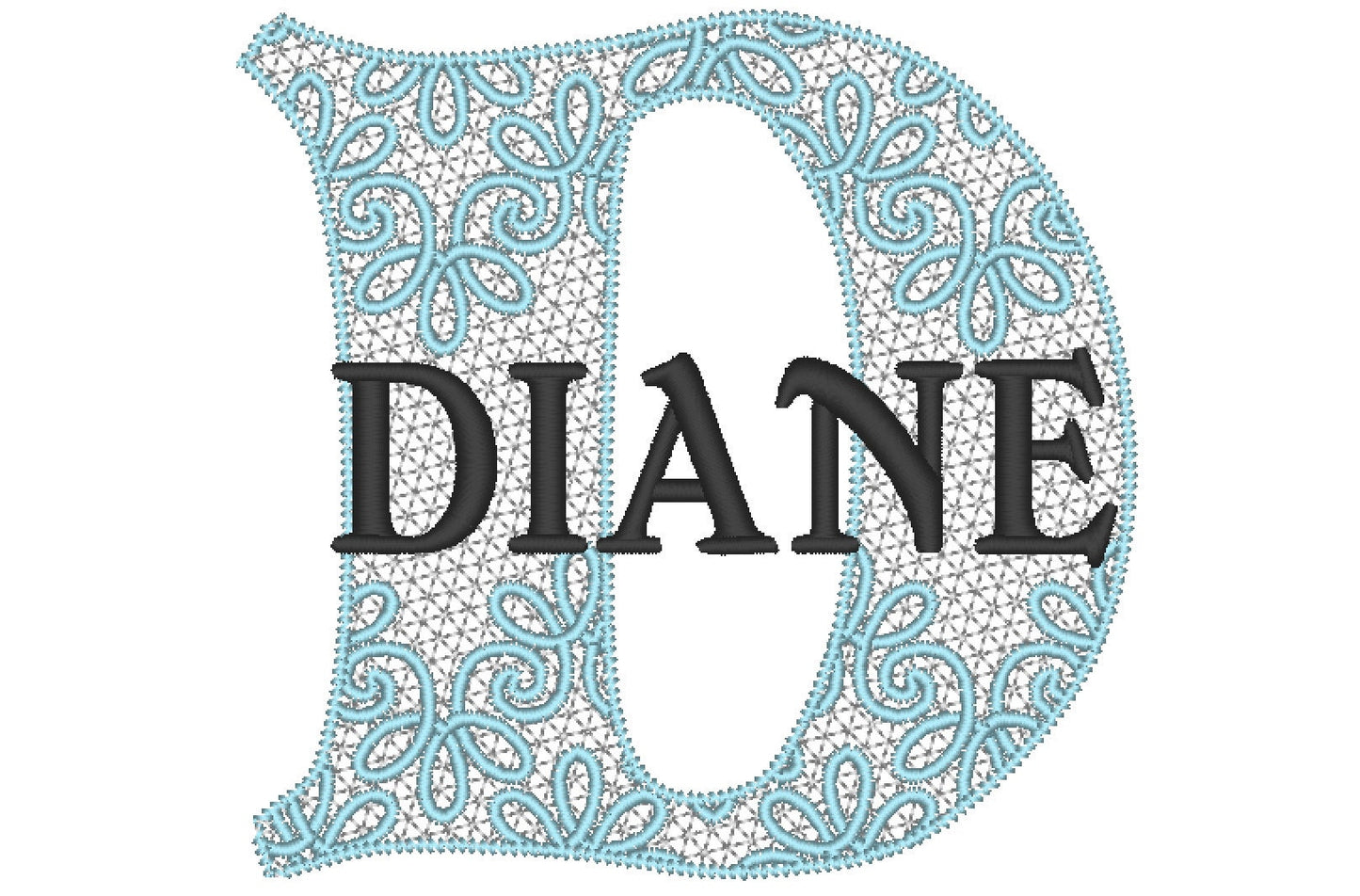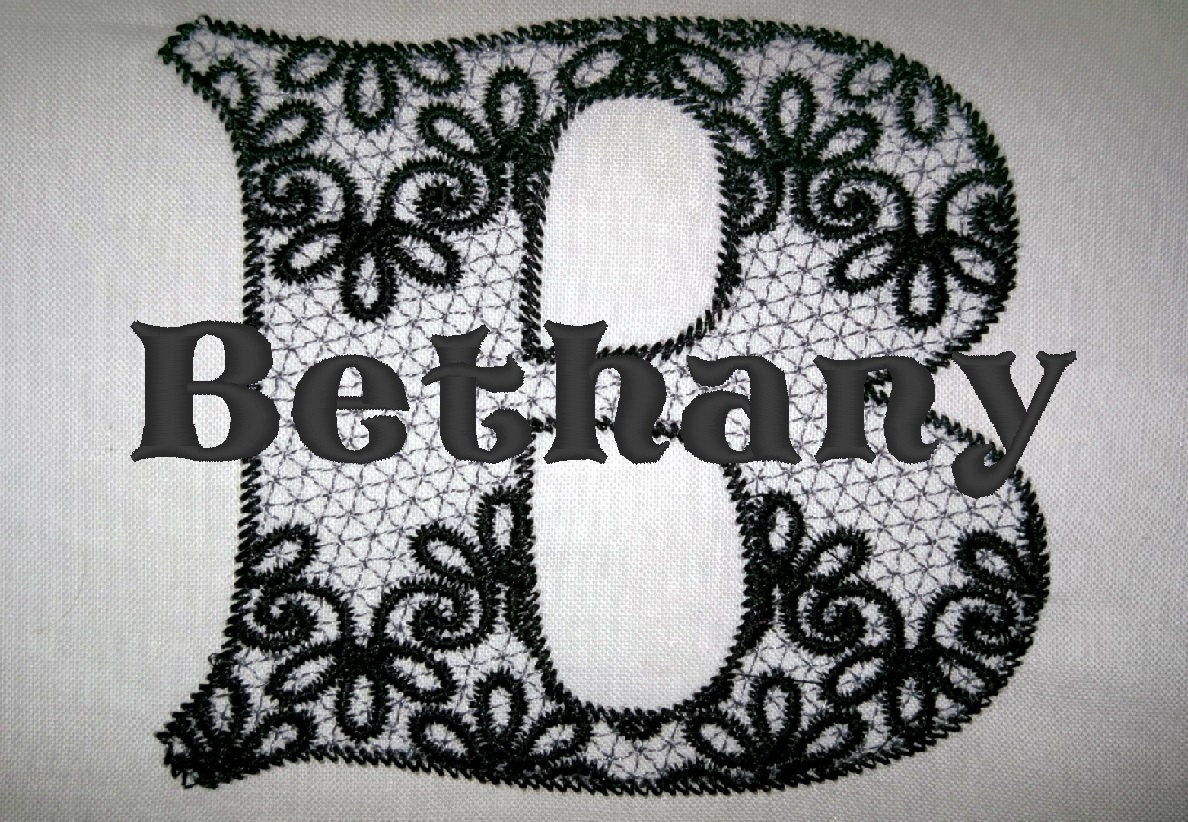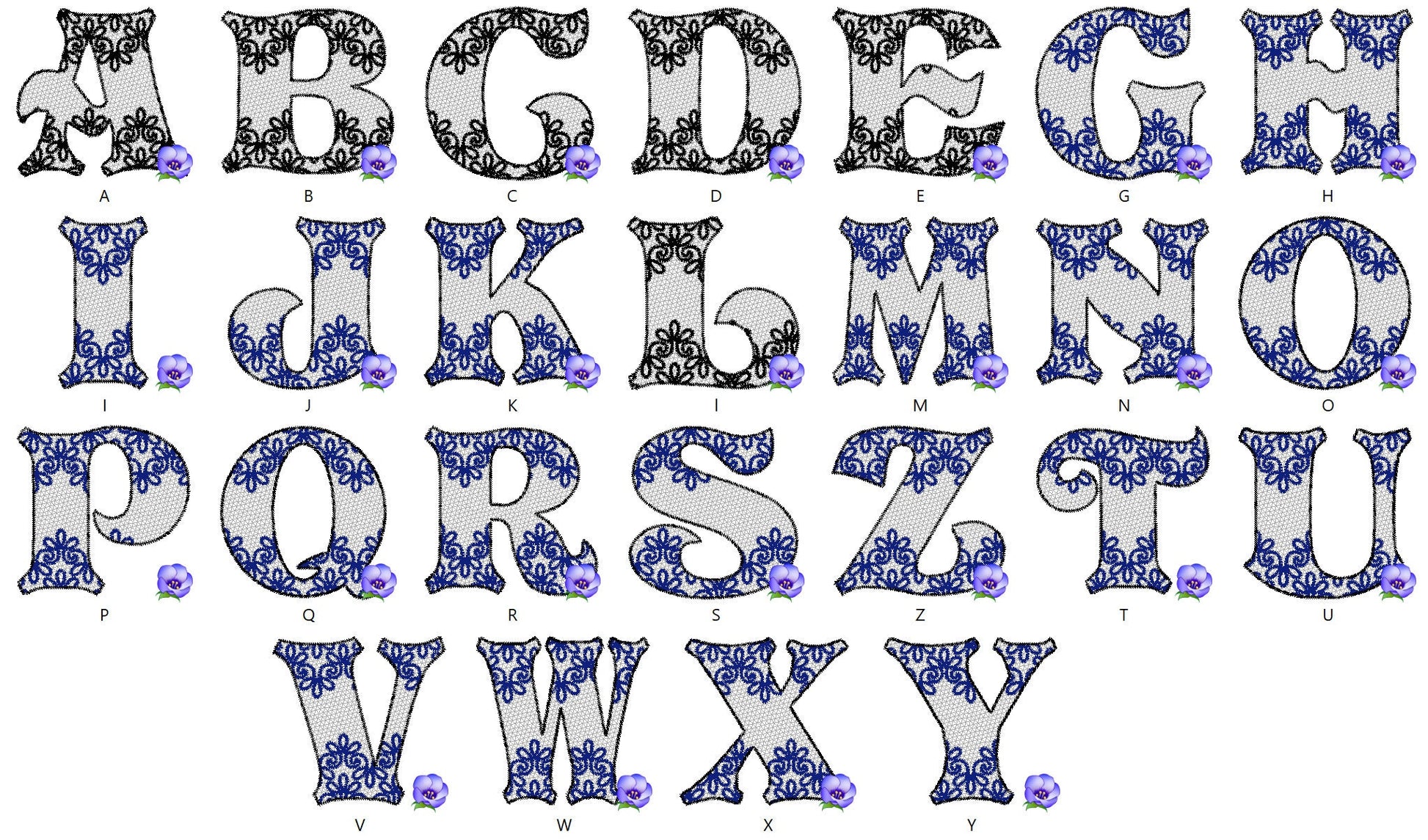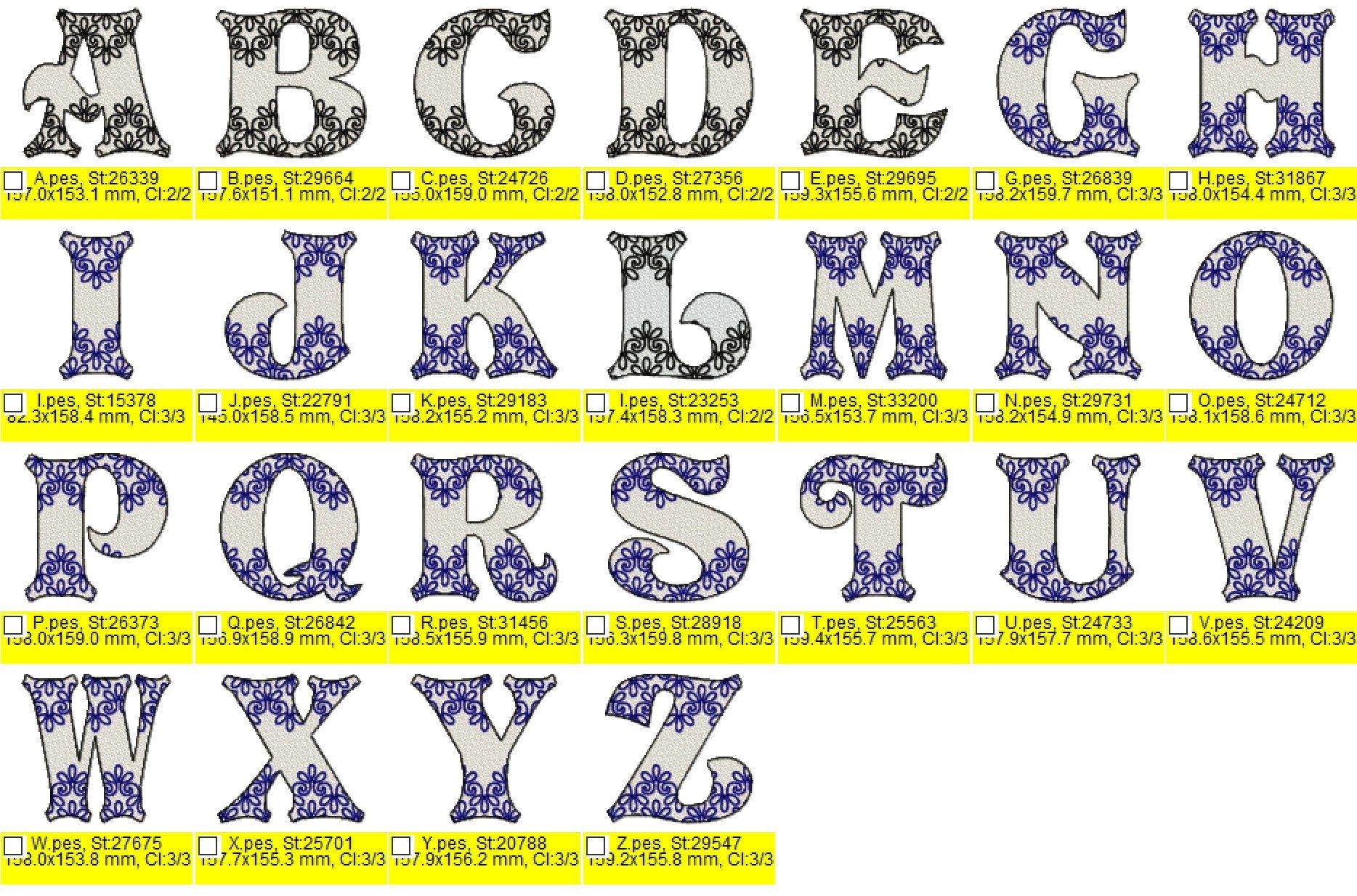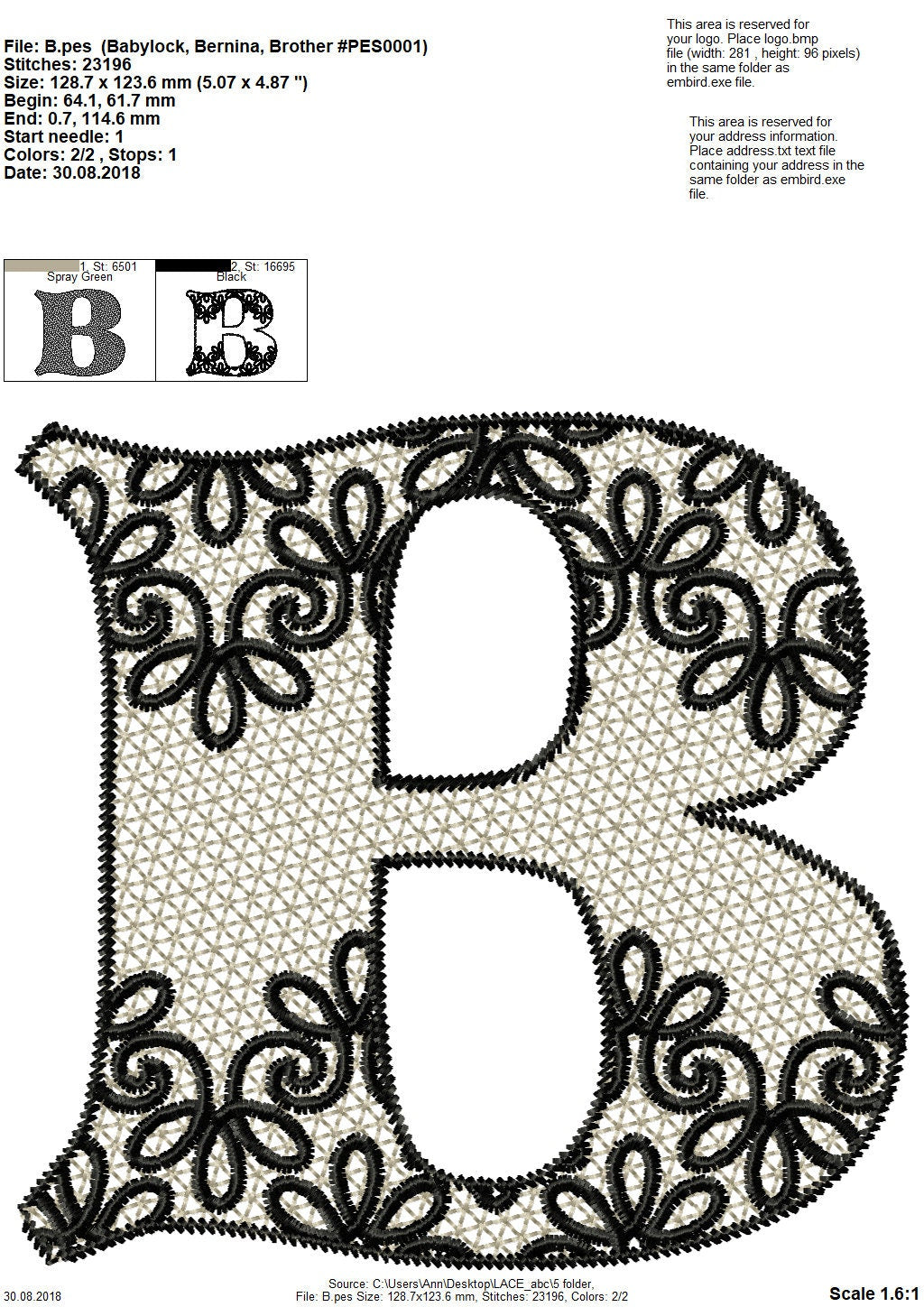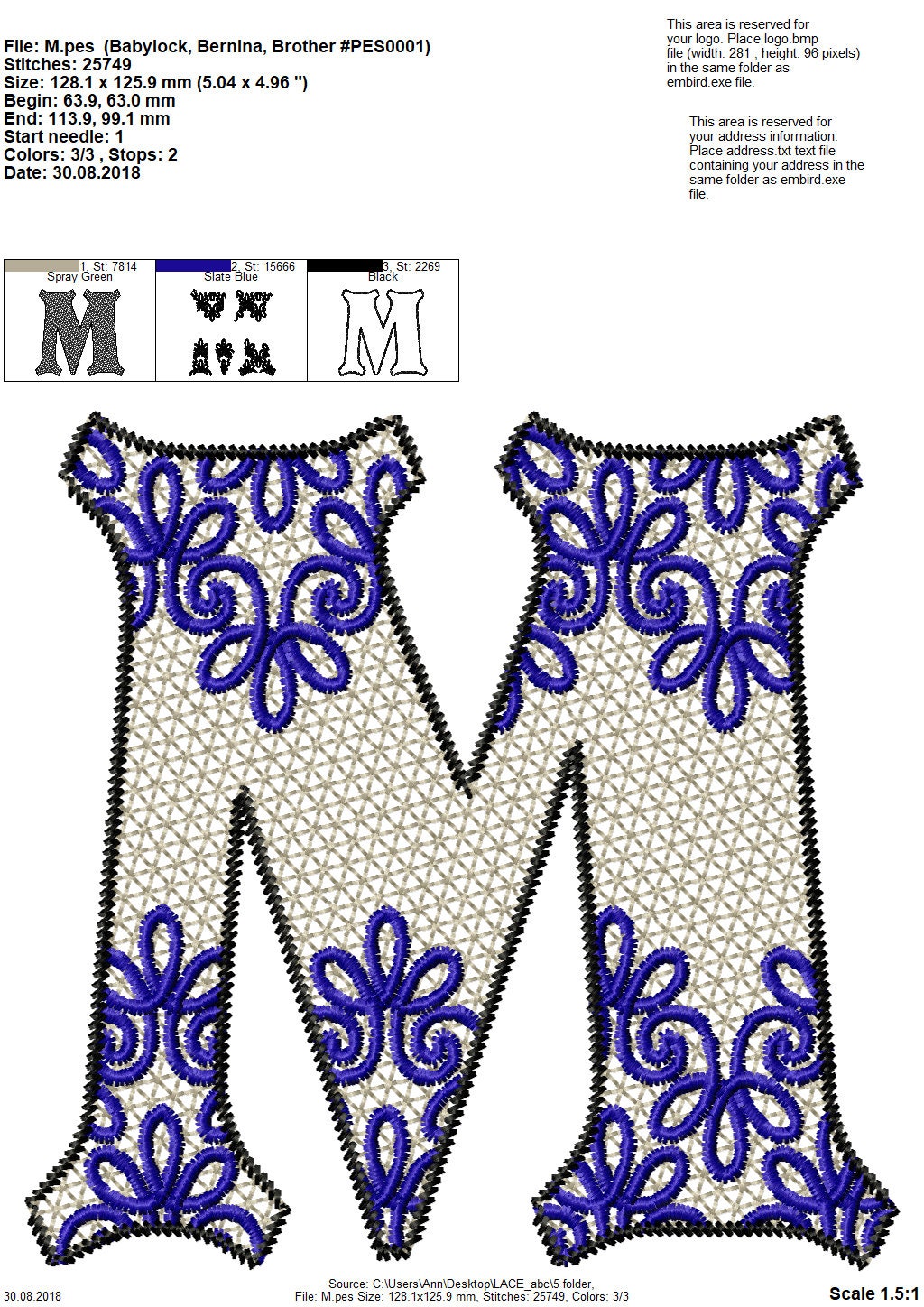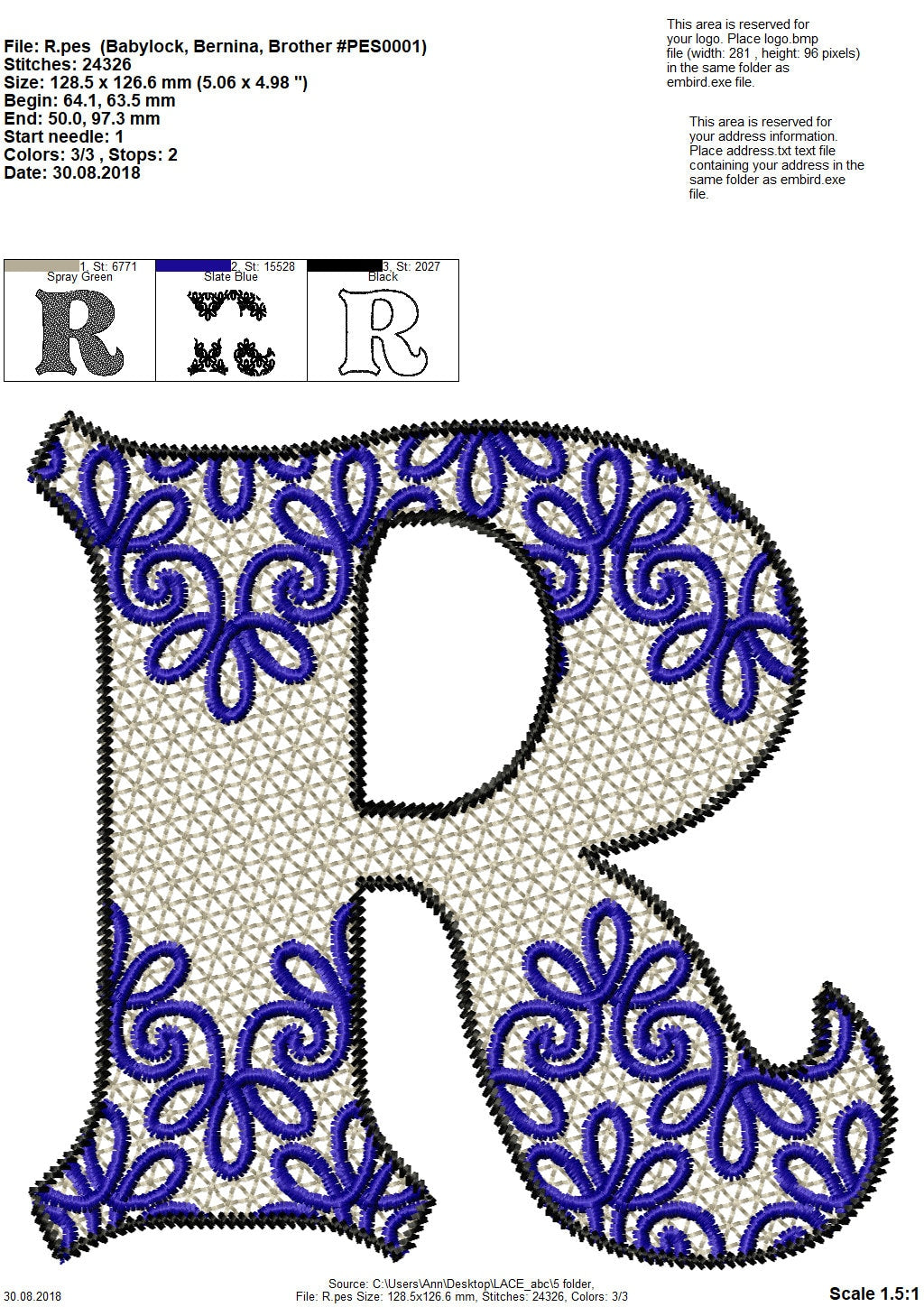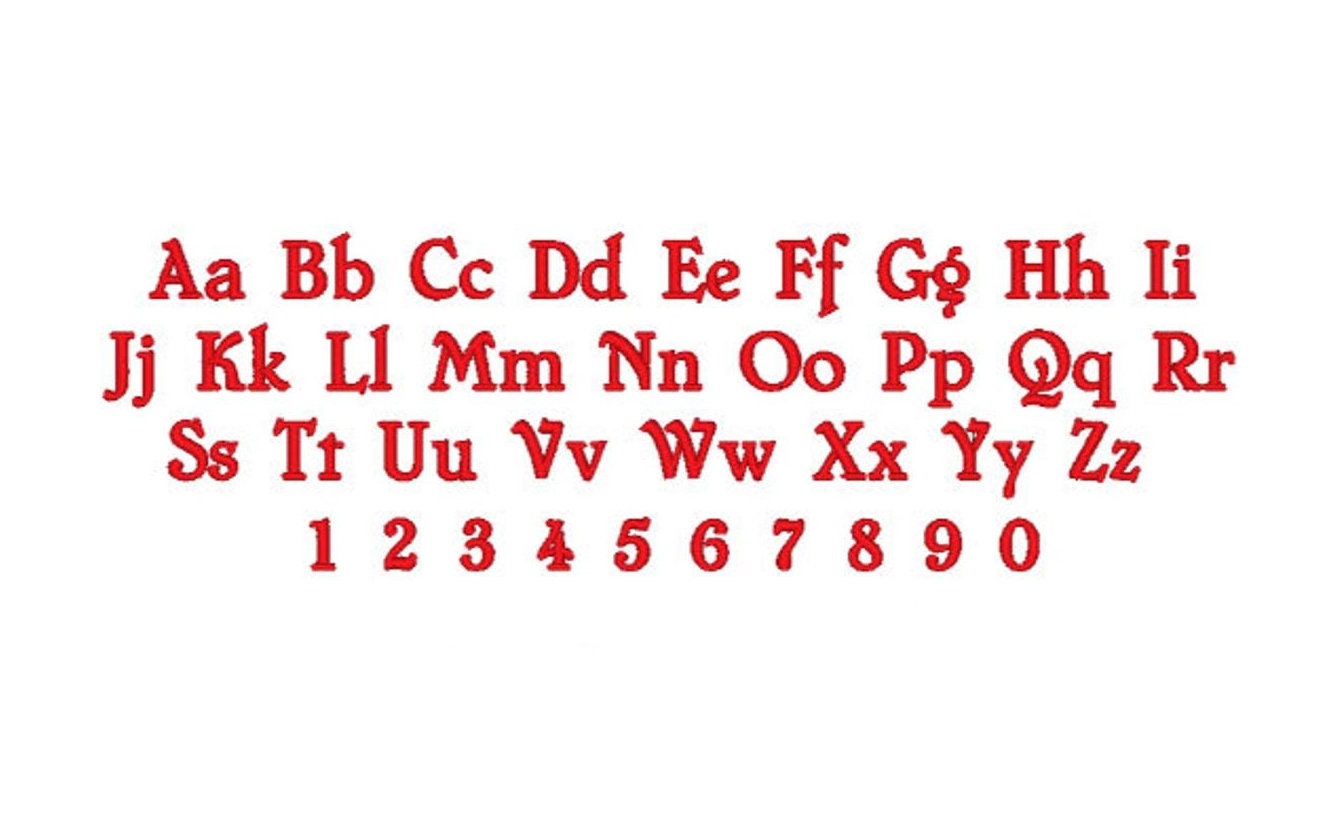
Delicate Lace Split Monogram Font
Or click to open the linkDelicate lace-style split monogram letters with a matching mini font that fits into the split. Lovely for towels, pillows, napkins and wedding gifts.
The split letters come in 4, 5 and 6 inches. The mini font comes in seven sizes from 0.6 to 2.5 inches, so a name or initials fit neatly into the split.